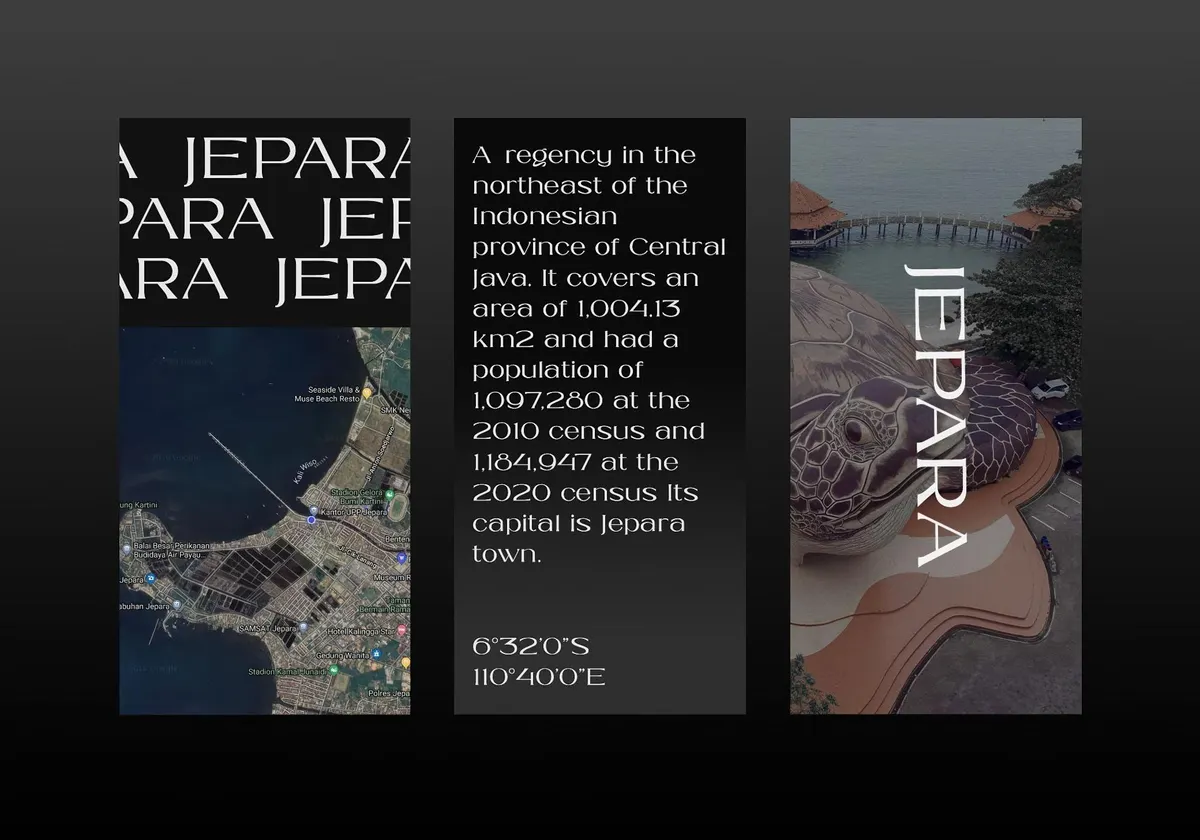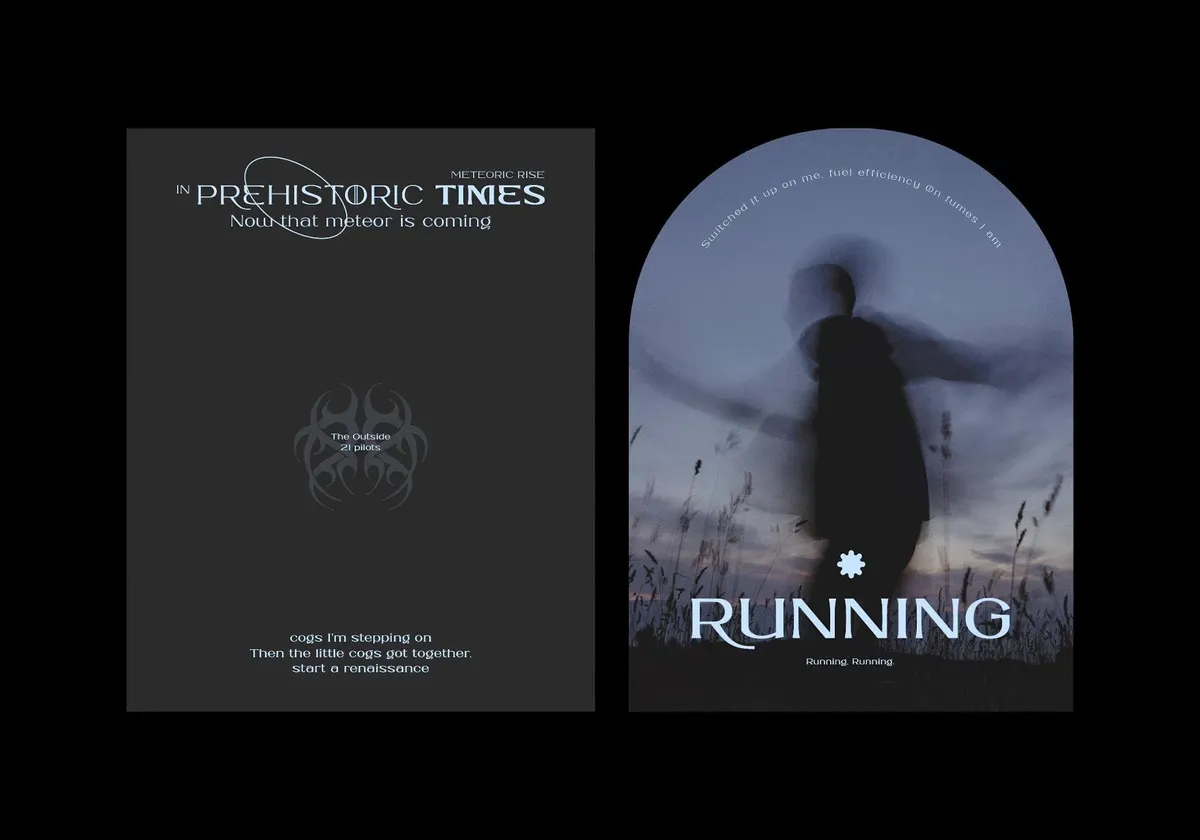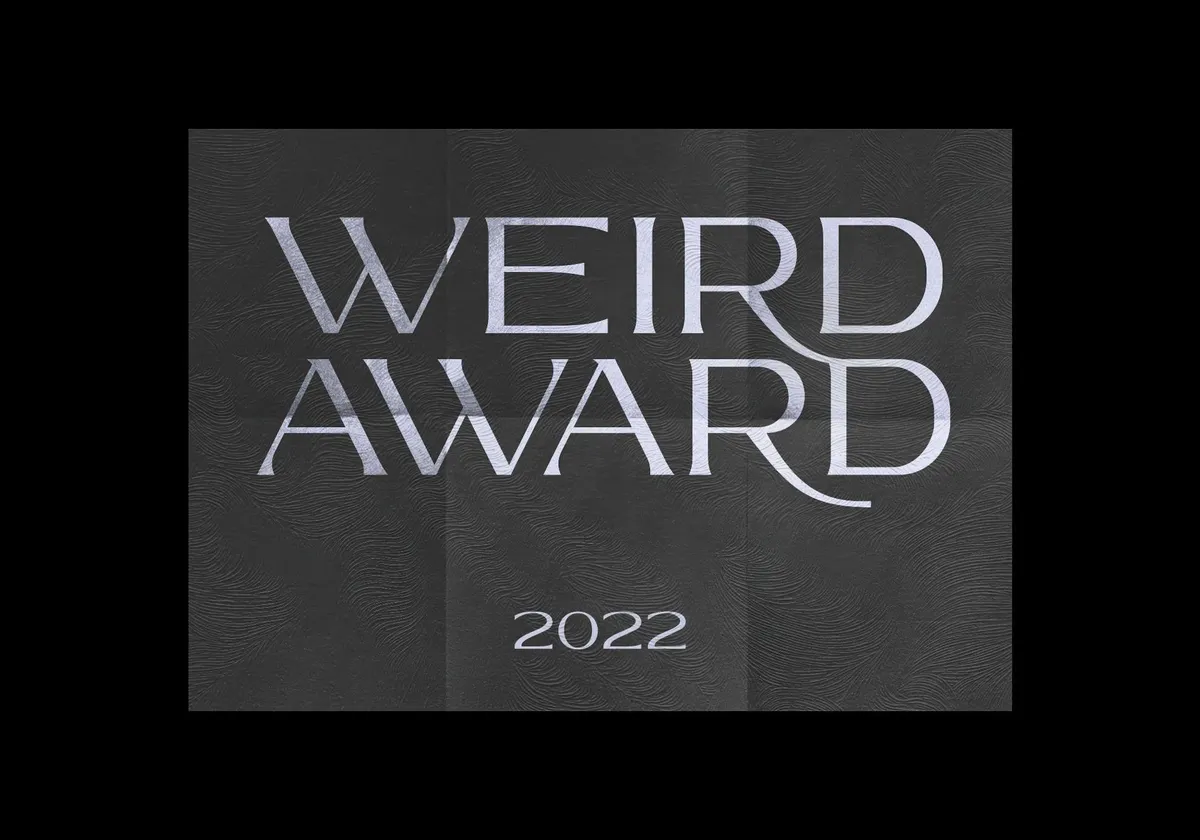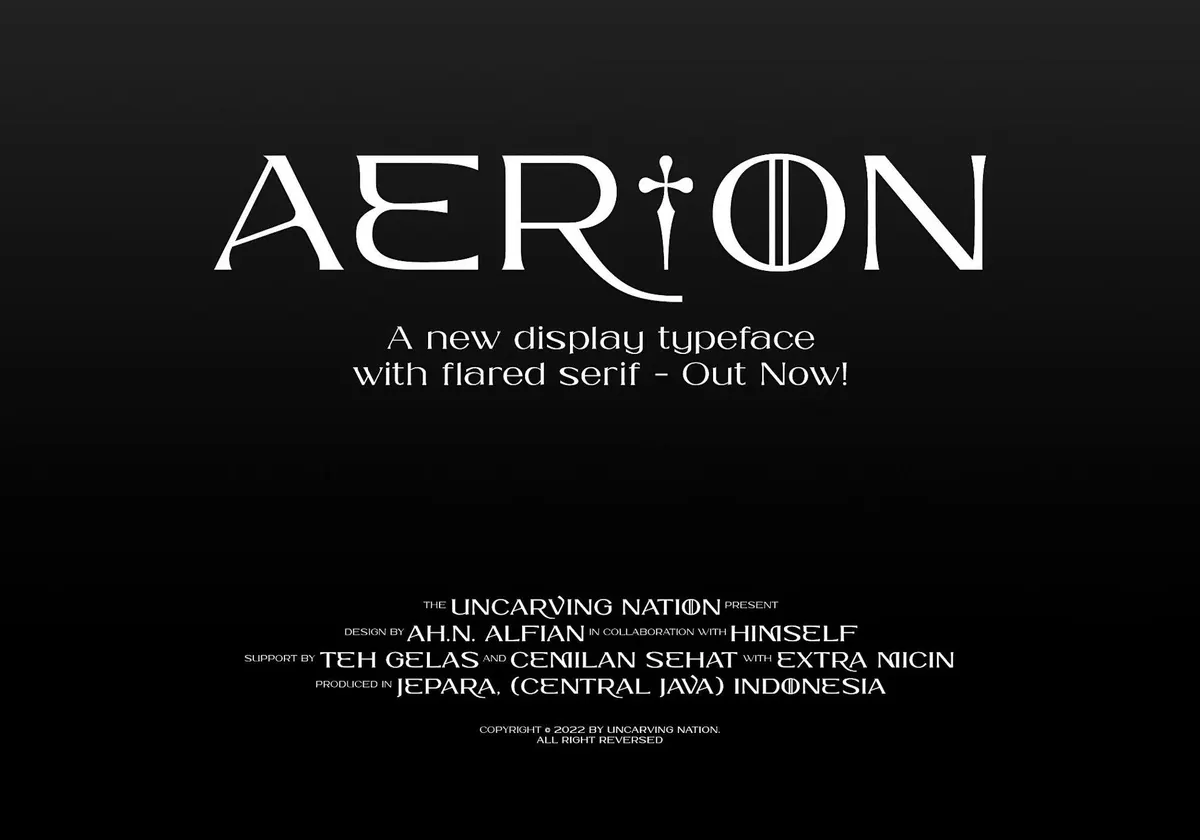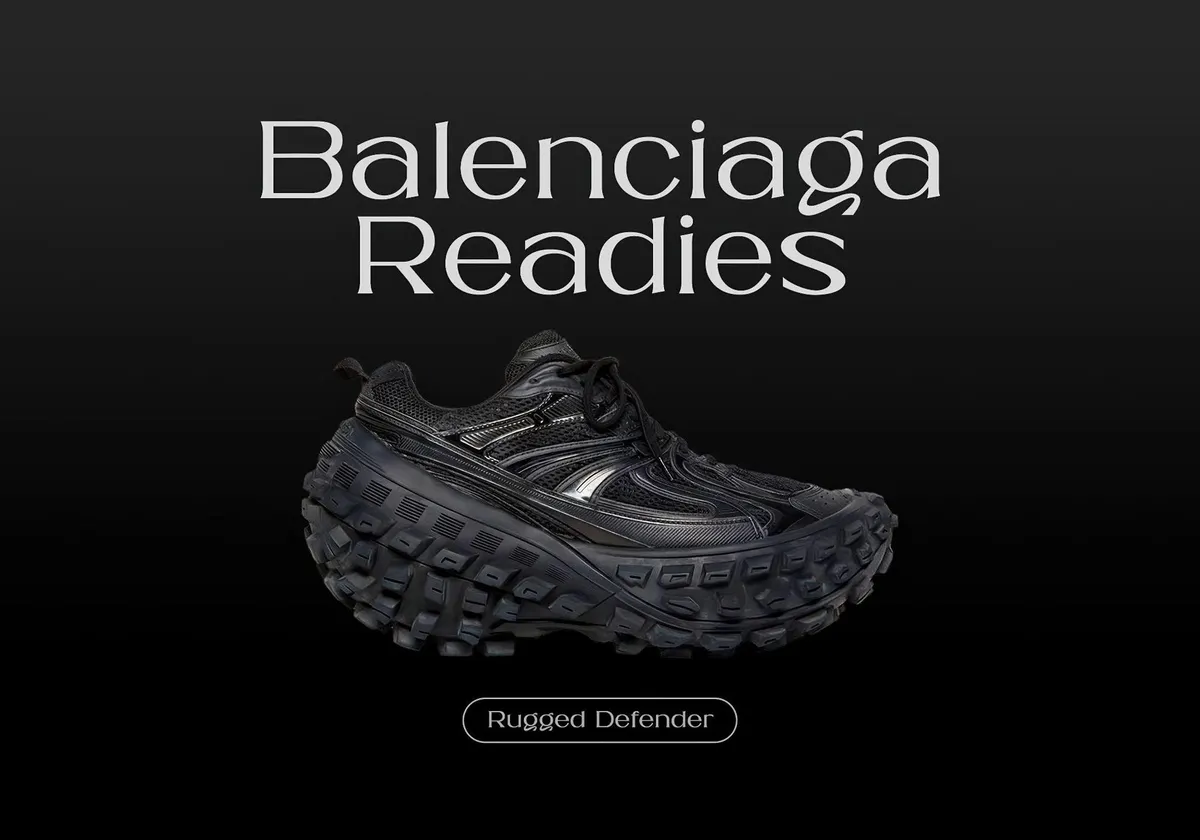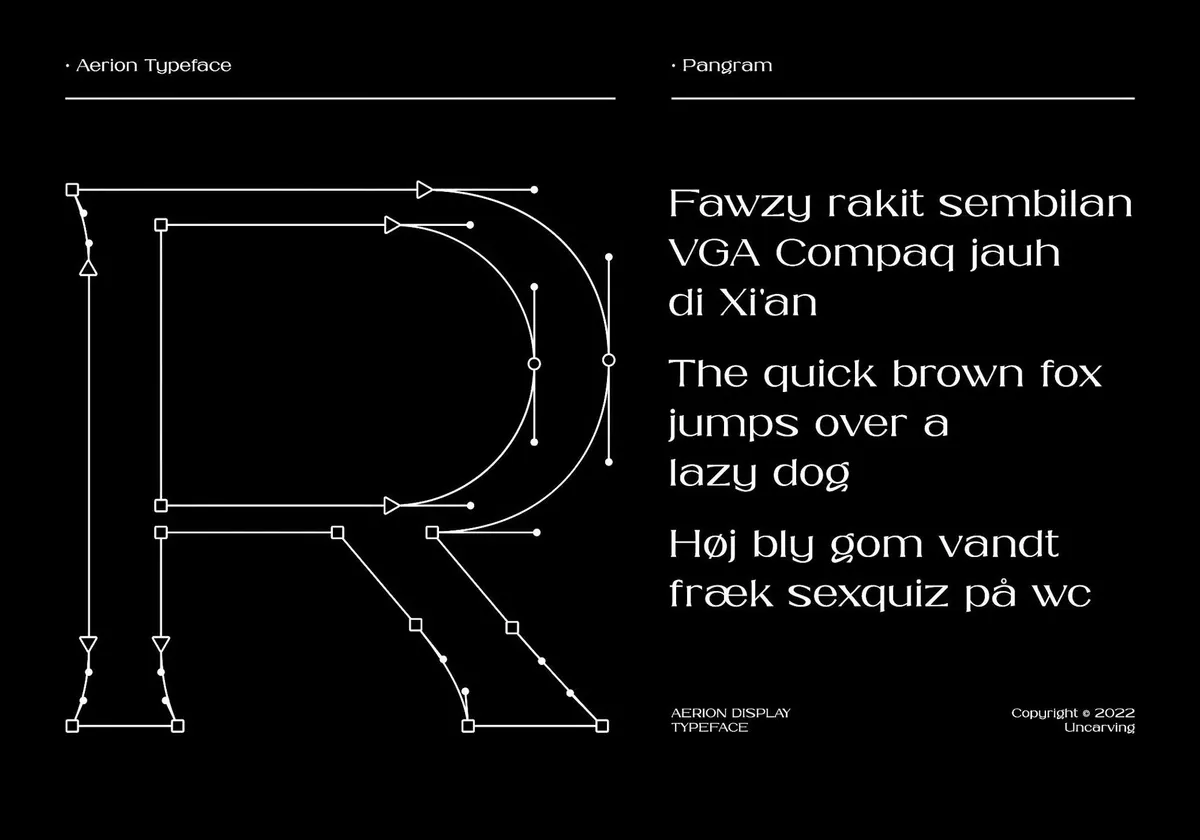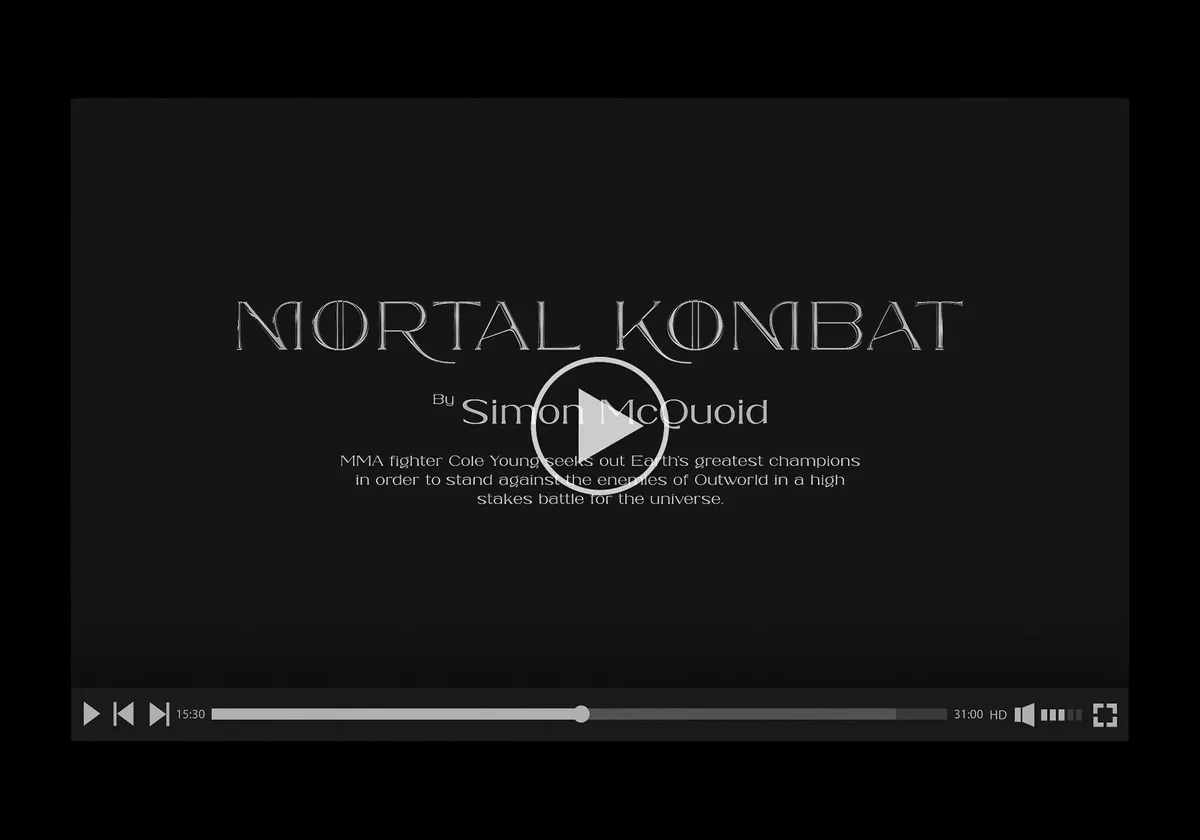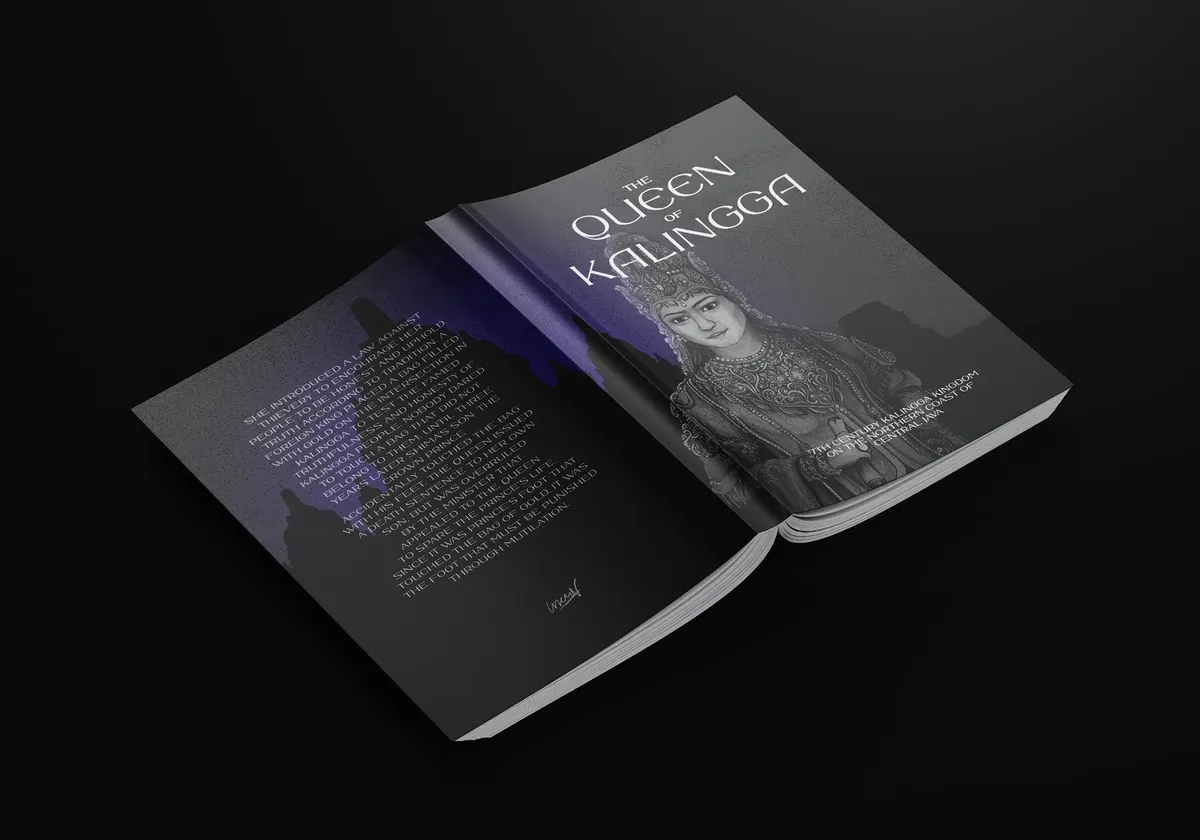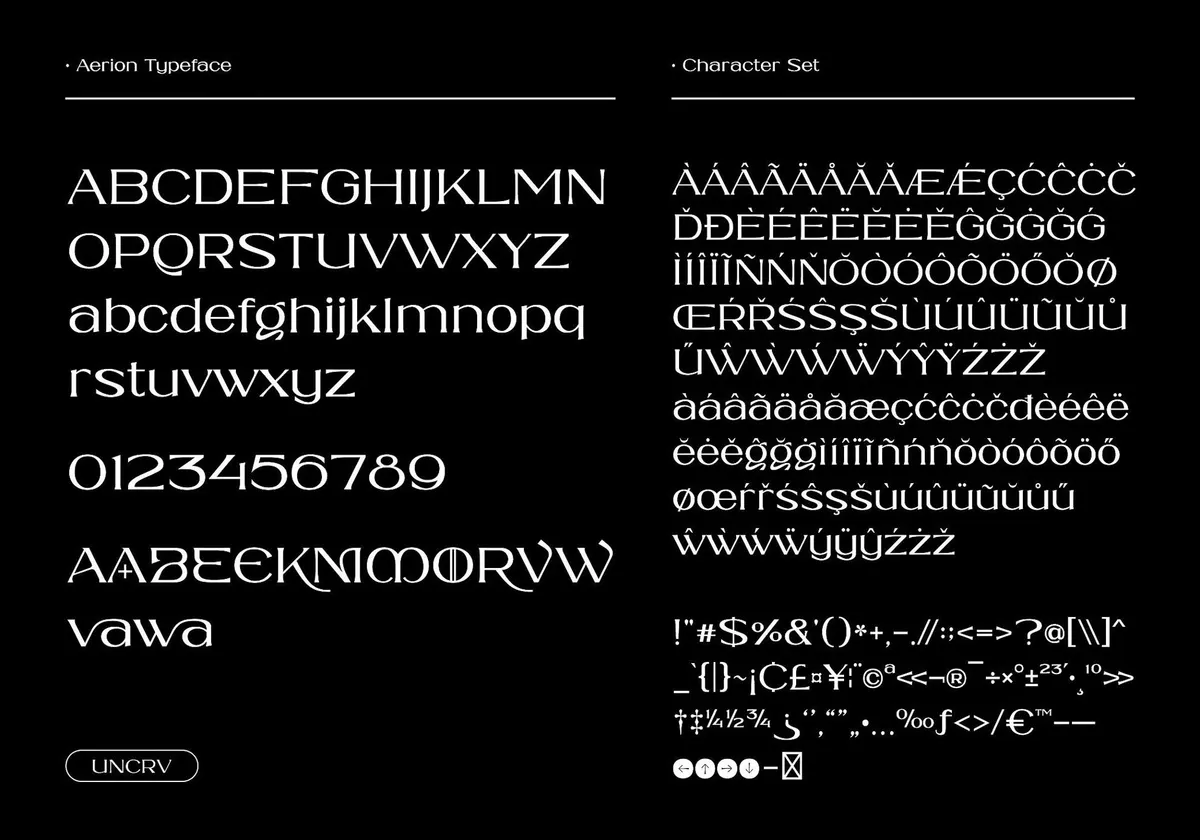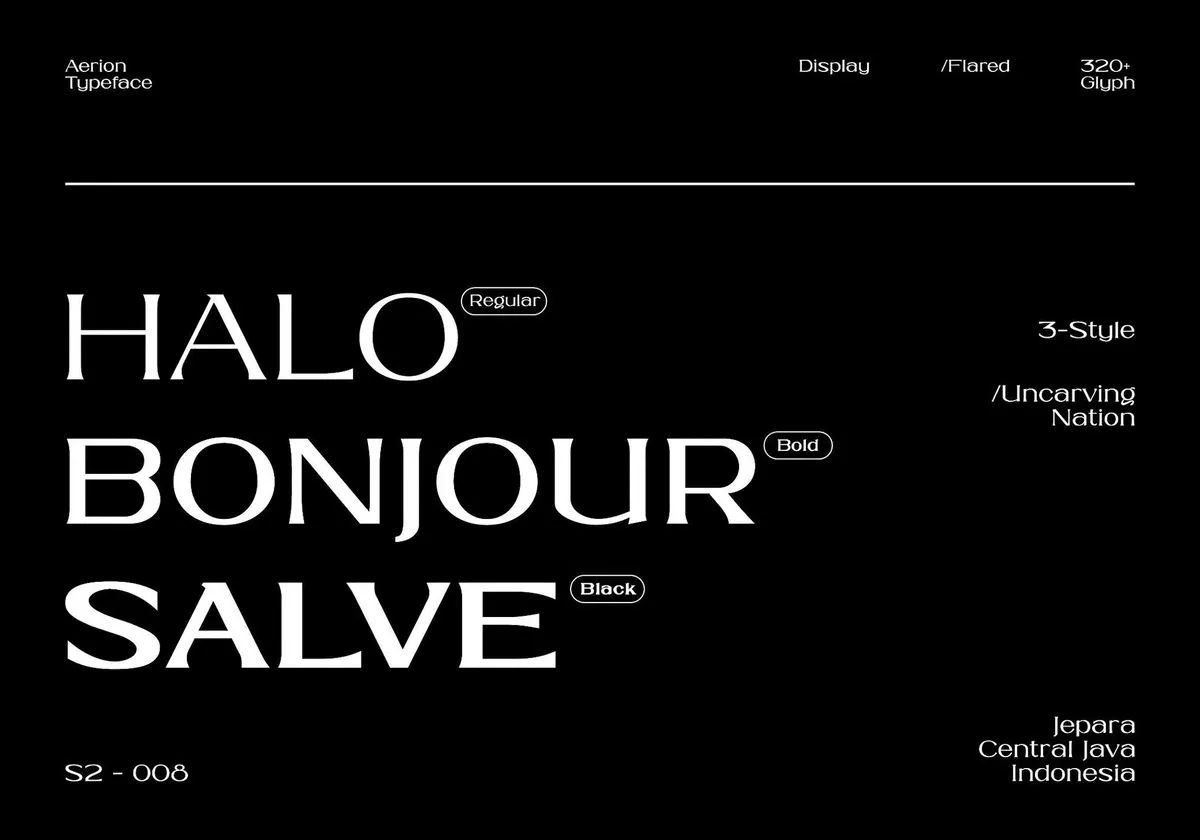
Aerion — Display Serif
The recipe of Aerion font is pretty simple: you take Lord of the Rings vibes, throw in a dash of high-fashion elegance, and then decide, "you know what? Let’s make it work on every medium from magazine layouts to Instagram captions."
Yep, this font is ultra versatile, we mean it. Aerion brings the perfect blend of mystical fantasy and modern chic, so you’ll never run out of opportunities to use it. Perfect for editorial designs, social media, magazines, book or album covers it’ll make you go, “Oh, I’m fancy now,” but in a way that’s like...effortless. It has three weights — regular, bold, and black all packed with a standard set of lowercase, uppercase, numerals, and punctuation . Plus stylish alternates, accented characters, and a bunch of ligatures for adding an extra touch of flair.